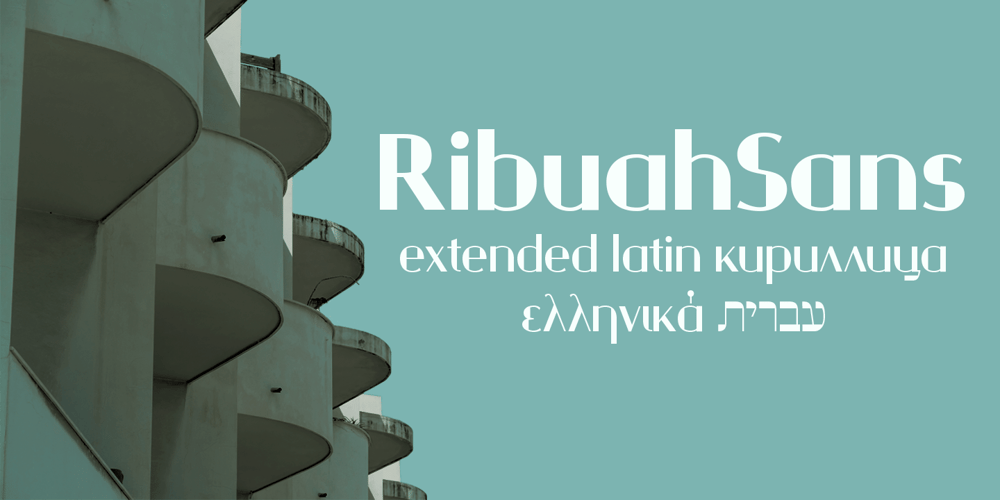
Ribuah Sans Font Family was designed by Anna Tsuranova and published by LetterMuzara. Ribuah Sans contains 3 styles and family package options. Ribuah Sans is a sans serif font with high contrast, inspired by the font “Bodoni” and the architecture of brutalism. Ribuah Sans consists of three styles (light, regular, bold) and includes several writing systems such as Latin (supporting all European languages and Turkish), Cyrillic (supporting all Cyrillic-based alphabets), Greek and Hebrew. By it’s modern, geometric and strict nature this font will immediately draw attention to your design, thereby becoming a perfect option for heading and advertising.